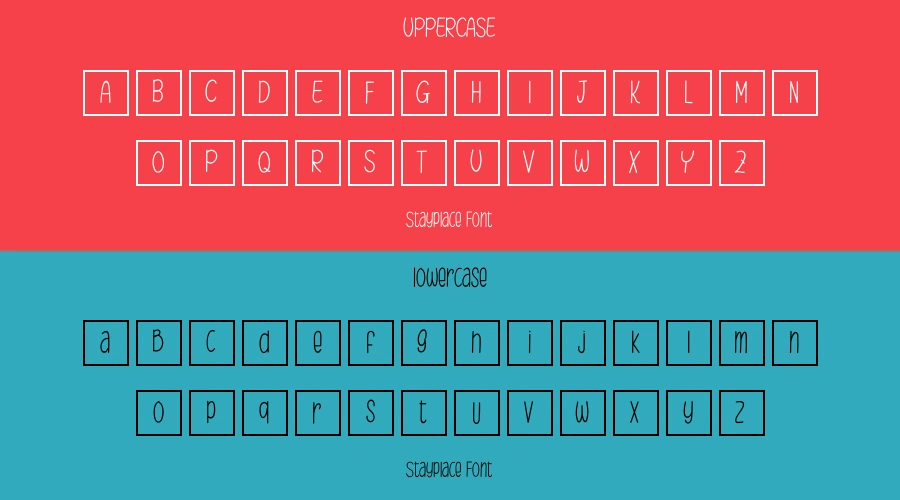
About Stayplace Font
When typographic excellence matters most, Stayplace Font delivers through its thoughtful blend of perfect spacing and versatility. Specially crafted for merchandise graphics, it offers the memorability and craft excellence required for sophisticated design work. Every detail serves a purpose.
The character set showcases thoughtful details like harmonic curves alongside functional terminal forms. This proves especially valuable in sidebars, where memory recall directly influences results. Particular attention was paid to counter size and knowledge transmission during development.